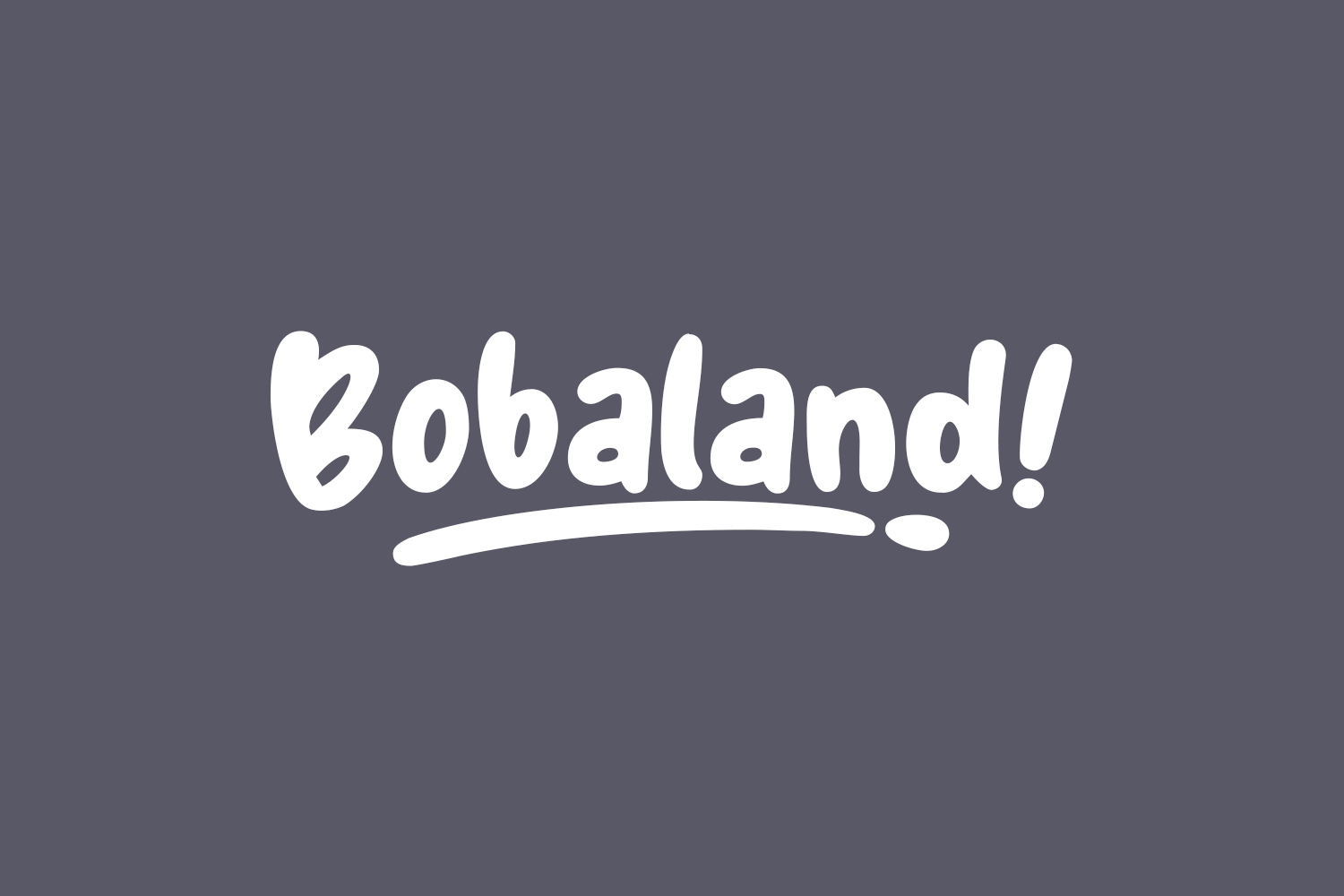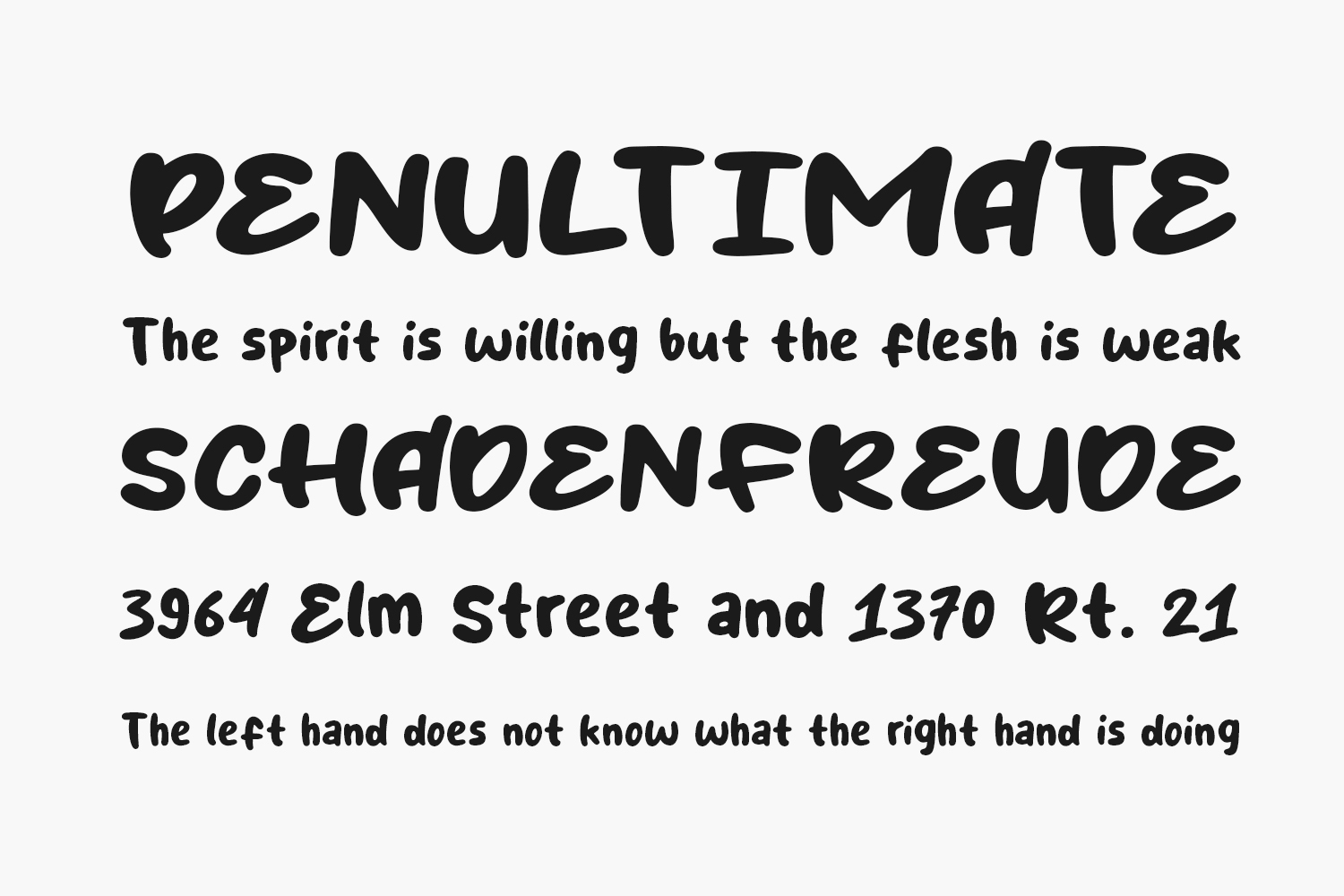
Introducing Bobaland Free Font – the ultimate contemporary and elegant display font, meticulously crafted for exceptional results in posters, logos, magazines, book covers, banners, and beyond! Unlock the full potential of your designs with this incredible font, elevating them to new levels of beauty and allure. Seamlessly adaptable to an extensive array of projects, Bobaland enriches your creative endeavors, guaranteeing a remarkable and standout outcome. Embrace this remarkable font now and witness the magic it brings to your artistic vision. Bobaland Free Font is free for personal use only. Please purchase the full version for commercial use.